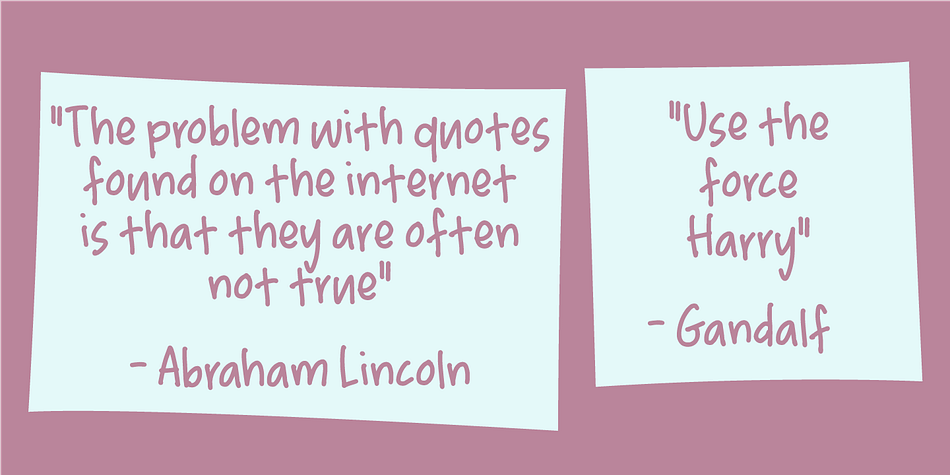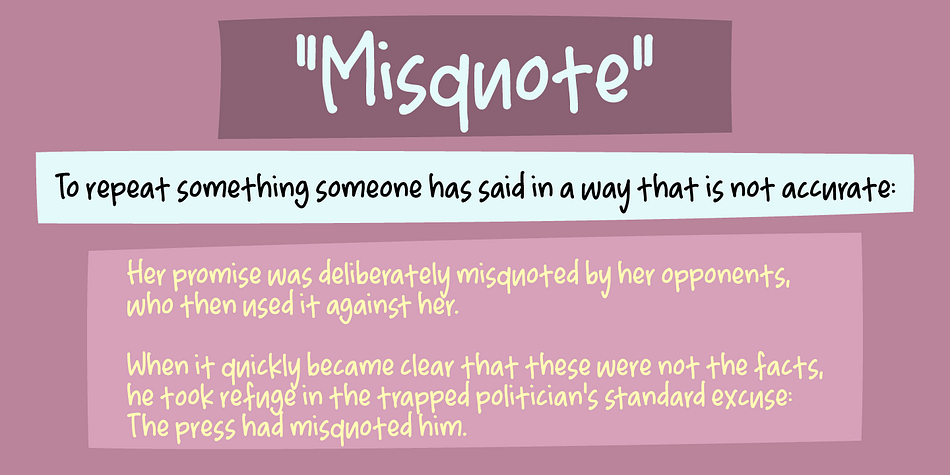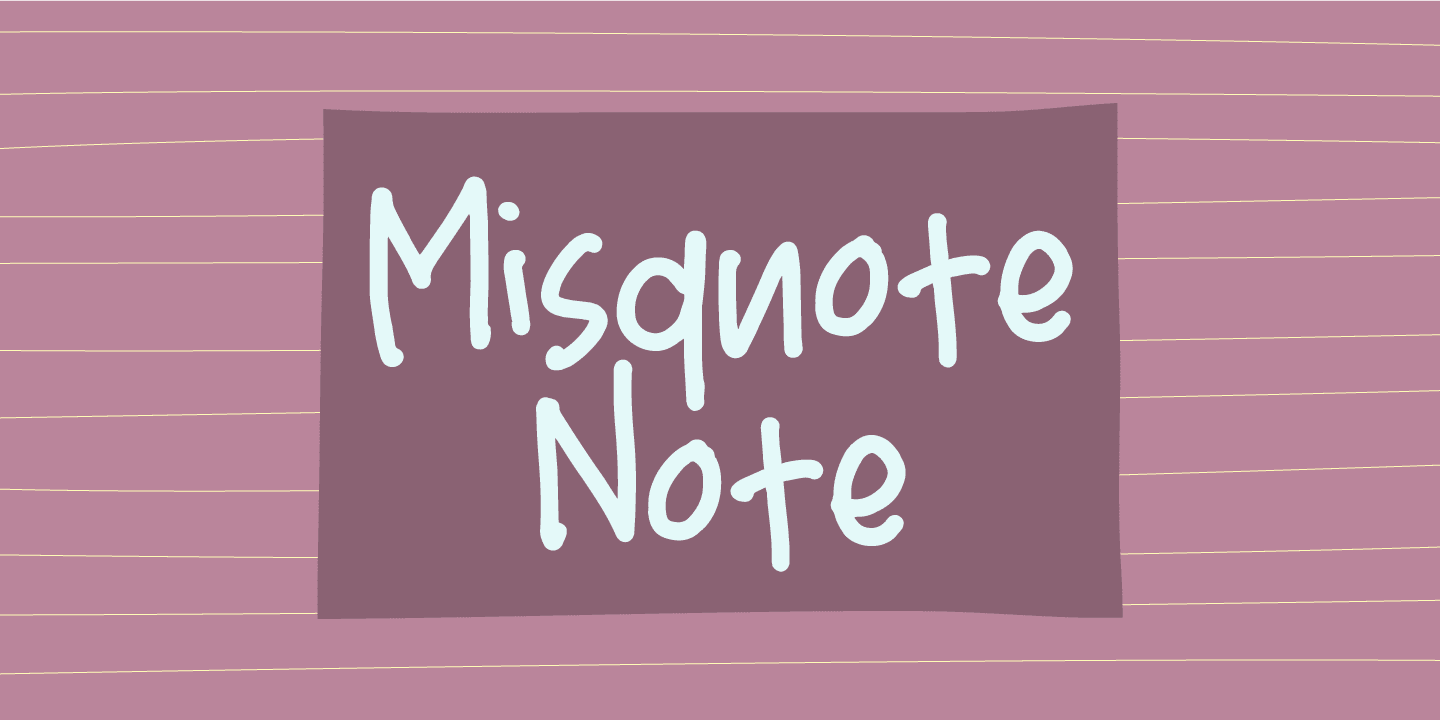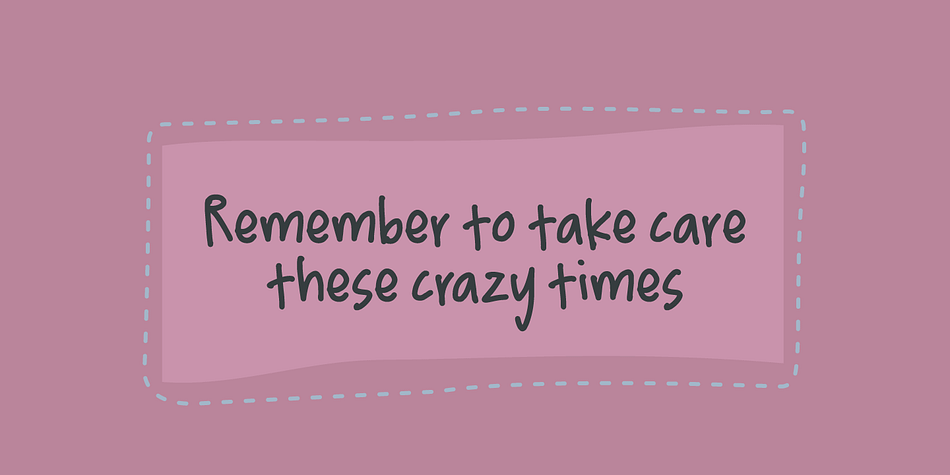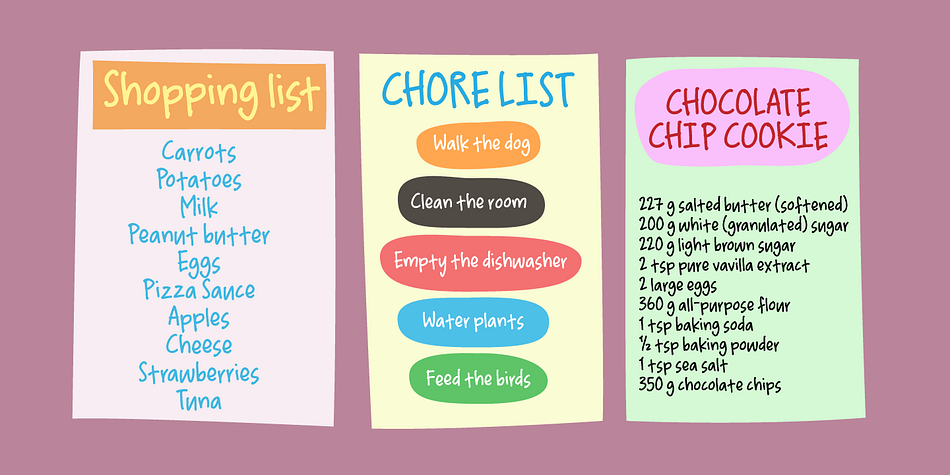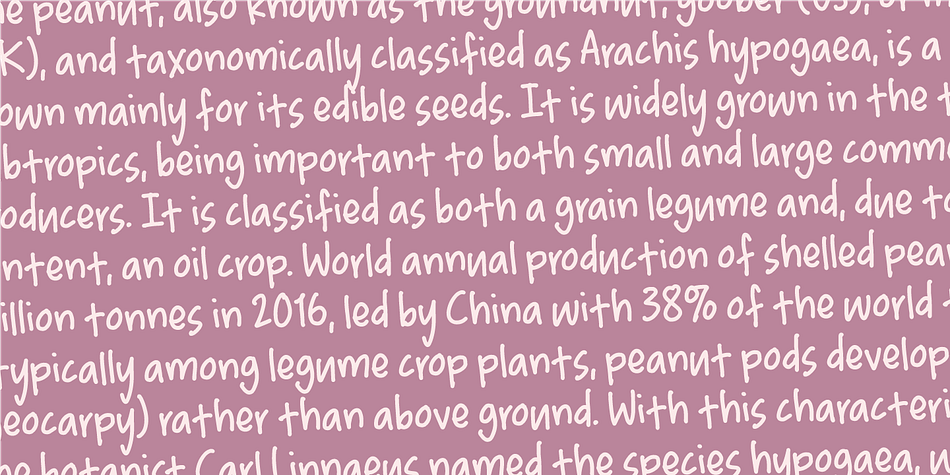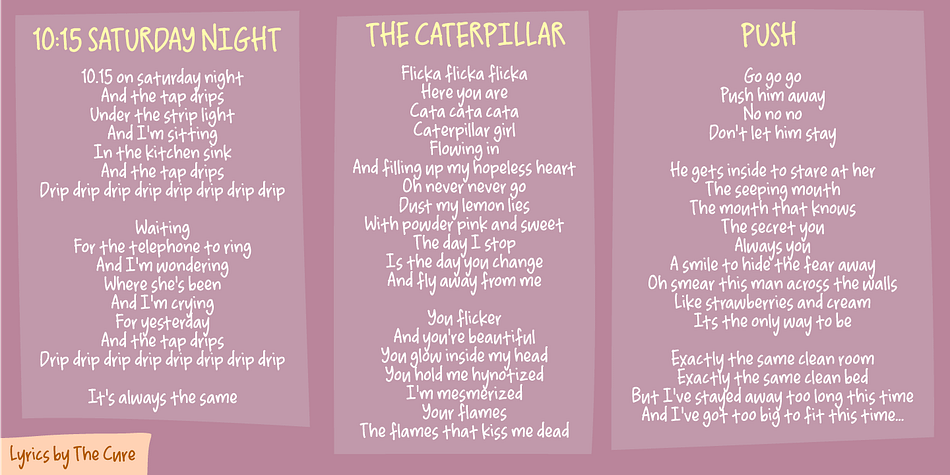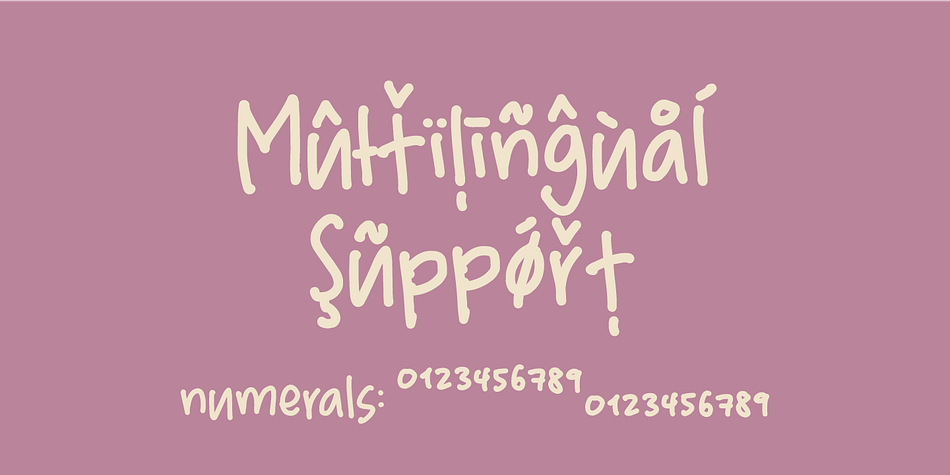
Designed by Jakob Fischer, Misquote Note is a hand drawn font family. This typeface has two styles and was published by Bogstav.
Here’s my all-purpose handwritten font. Actually, it’s my own handwriting - in speed mode! Well, speed mode but still concentrating on creating letters that are legible! :)
Misquote Note is an all-purpose text font. Suitable for anything that needs a hasty yet legible look. That could be recipes, invitations, postcards, posters, chore lists, diaries etc.